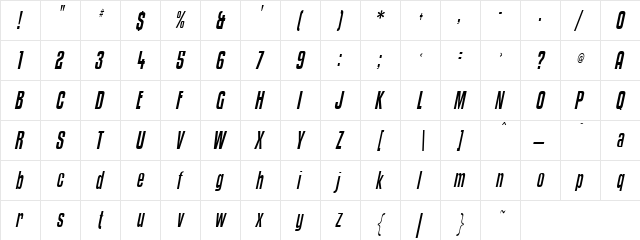
Maggi Terrace Italic Regular
Design Context for Maggi Terrace Italic Typeface
Maggi Terrace Italic is a composed and adaptable typeface that performs quietly and consistently across a wide range of design contexts. Its italic angle brings a sense of urgency and motion to the letterforms.
Pro Tip: Use Maggi Terrace Italic for emphasis, pull quotes, and subheadings where its slanted energy can add rhythm to the layout.